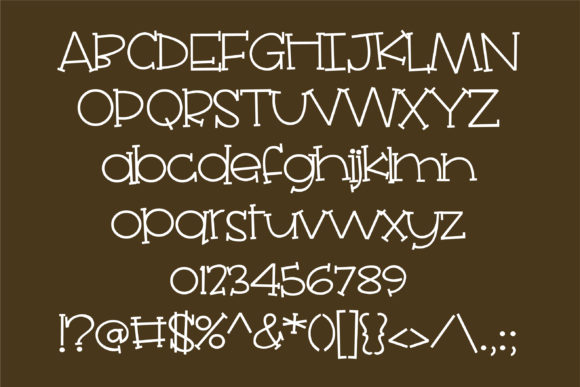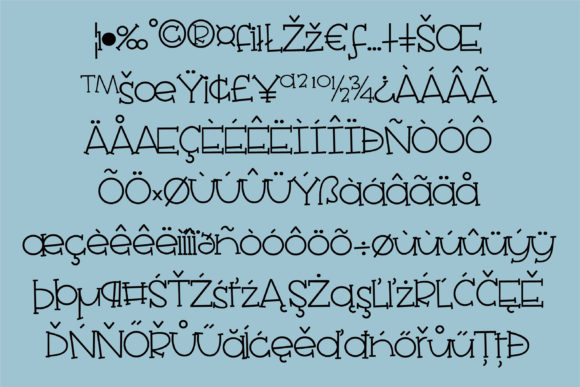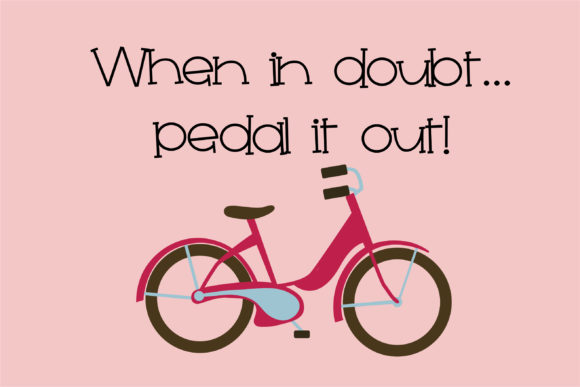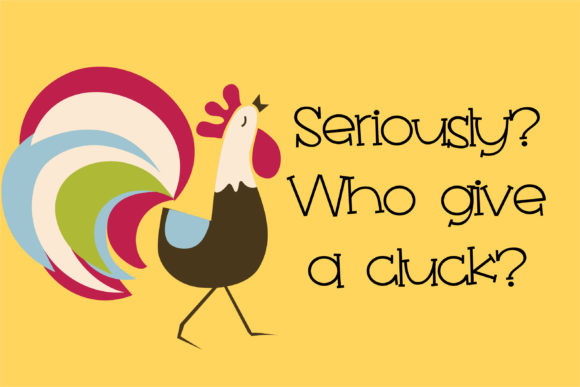
Introduction to Homeward Font Font
Fonts play a crucial role in design, and the Homeward Font font is a typeface that brings both character and versatility to any project. Whether you’re working on a branding project, a website, or a print design, the Homeward Font font offers a unique style that can elevate your work.
| 📌 Font Name | Homeward Font |
| 👤 Author | Illustration Ink |
Homeward is a fun and joyful serif font with a whimsical twist.
Fall in love with its kooky style .
Key Features of Homeward Font Font
Why Choose Homeward Font Font?
The Homeward Font font is more than just a typeface – it’s a design tool that helps you communicate your message with style and clarity. Its unique character set and versatile design make it suitable for a wide range of applications, from elegant invitations to bold headlines.
With its carefully crafted letterforms and balanced proportions, the Homeward Font font ensures readability and visual appeal across all mediums.
What makes Homeward Font font special?
The Homeward Font font stands out with its unique design, exceptional readability, and versatility across various design applications.